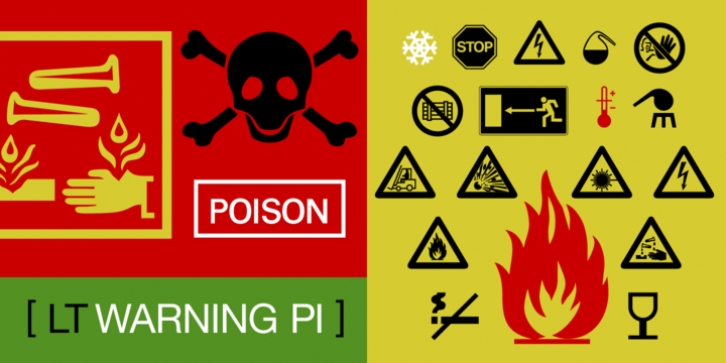
Audio Pi and Warning Pi make symbols easier to use for designers working in the recording and broadcast industries and for signs and maps where clear indication of hazards is important.